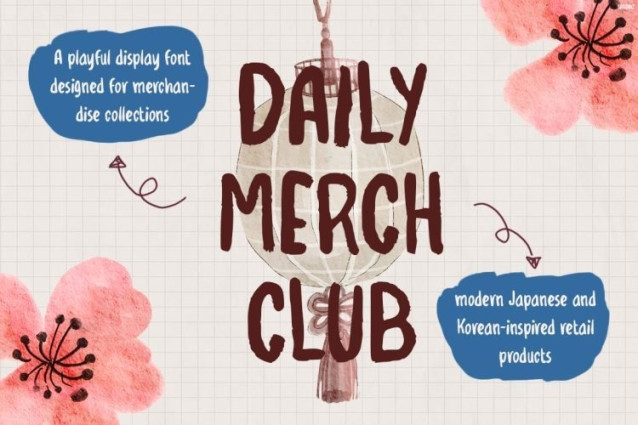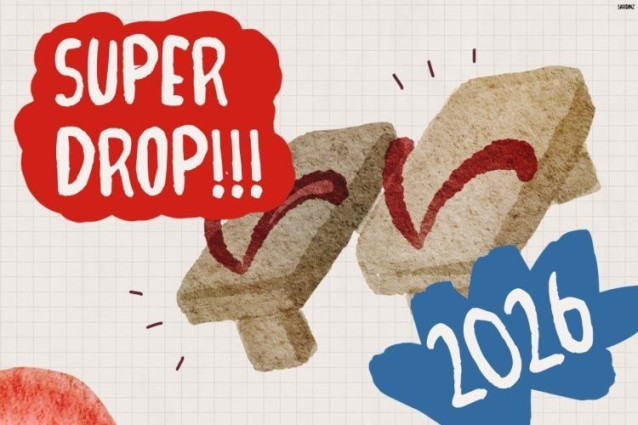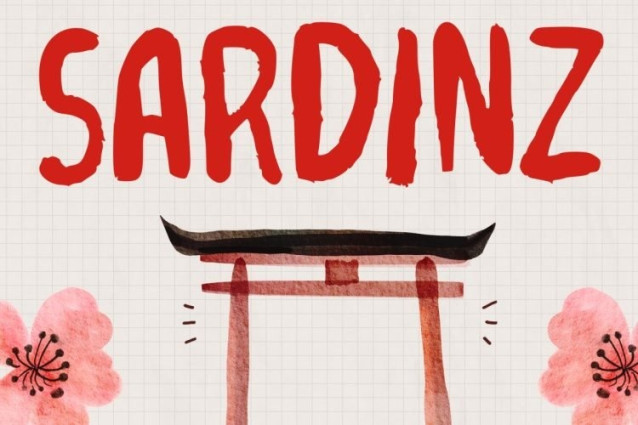
Sardinz Font
Sardinz Font is a playful handwritten display font inspired by Japanese street aesthetics, creative merchandise, and youthful artistic expression. Not only does it feature organic brush-like strokes, but it also showcases imperfect shapes that create an authentic handmade personality. Moreover, its spontaneous lettering brings a natural and expressive feeling to every design. In addition, the rough yet balanced structure makes headlines look bold without losing readability. Furthermore, Sardinz delivers a modern DIY charm that matches current fashion and streetwear trends. As a result, your branding, packaging, and promotional materials become more distinctive and memorable. Meanwhile, its casual style adds warmth and a personal touch. Additionally, the playful aesthetic helps products feel more unique and emotionally engaging. Therefore, Sardinz is an ideal choice for brands that want to stand out with a fresh and artistic identity.
Sardinz is created for designers and businesses looking for a relaxed, stylish, and handcrafted visual style. Whether you are designing apparel collections, sticker packs, merchandise products, Japanese-themed packaging, social media graphics, posters, or creative campaigns, this font brings a youthful and energetic vibe. Likewise, its hand-drawn character creates a friendly and approachable appearance. Furthermore, the expressive letterforms make every title feel more alive and dynamic. Consequently, your audience can connect more easily with your brand message. At the same time, its versatile design allows it to fit both digital and printed applications.